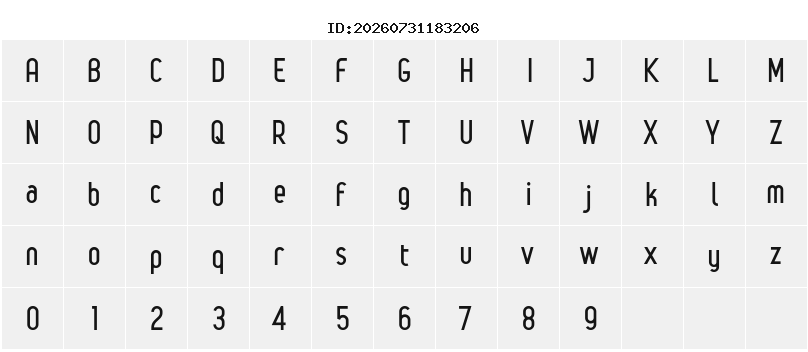
LegerBold Preview
• Font Name: LegerBold
• Font ID: Macromedia Fontographer 4.1.4 LegerBold
• Full Font Name: LegerBold
• Version: Macromedia Fontographer 4.1.4 8/29/00
• PostScript Name: LegerBold
About LegerBold.ttf
LegerBold.ttf is a modern, elegant sans-serif font designed for ultimate readability and visual harmony. Perfect for branding, headlines, web design, and print materials.